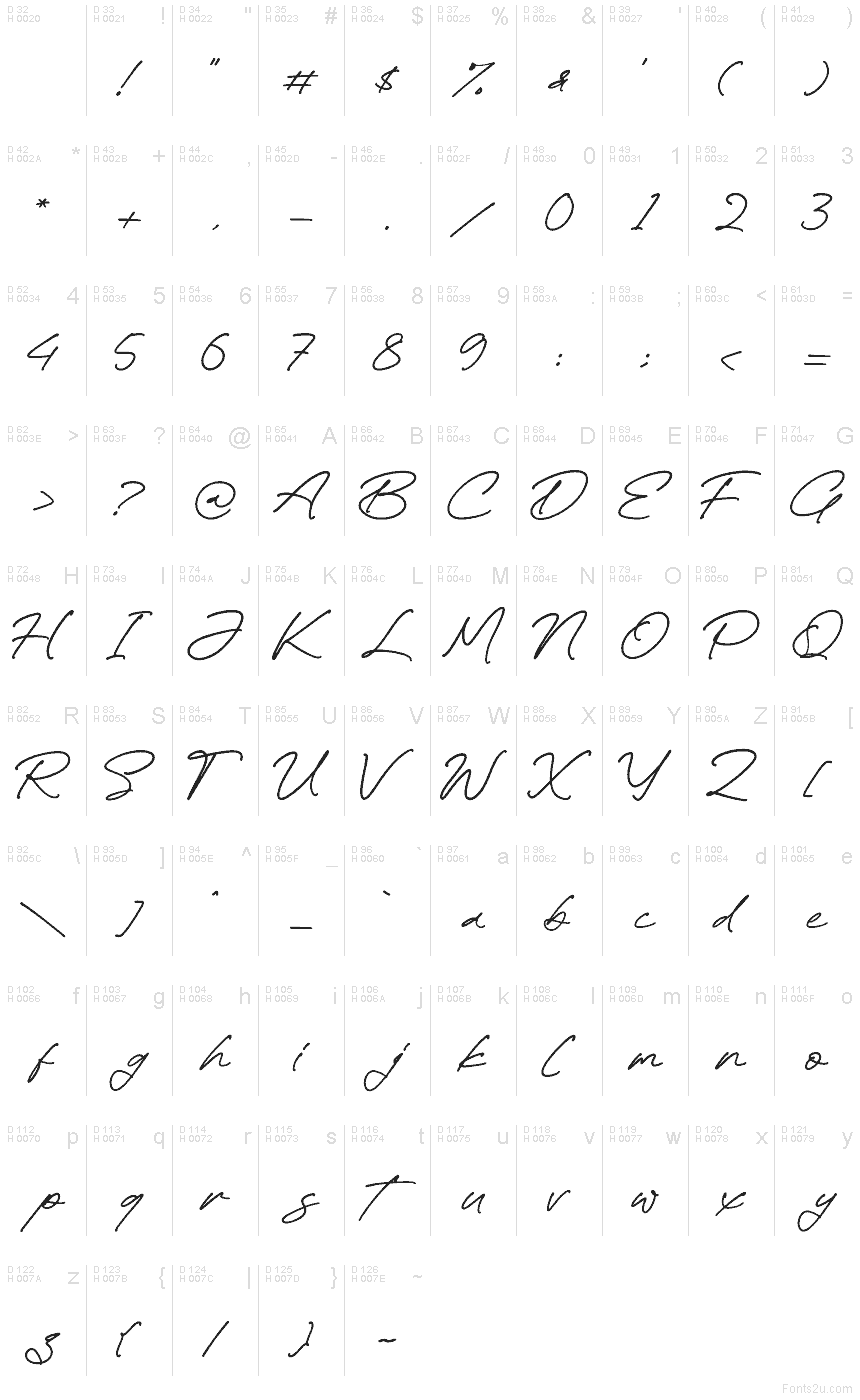
Rinatha
Rinatha font by Integritype Studio is a handwritten light font embodying casual elegance and organic grace. The typeface has a smooth flow, and its letters are stylish and relaxed while presenting nicely on both small and wide scales.
Free for all uses, Rinatha would be perfect in apparel designs, invitations for formal events, wall art prints, logotypes, signatures, boys’ designs sheets or branding applications. Any fans of artists like The 1975 may especially like the vibe.